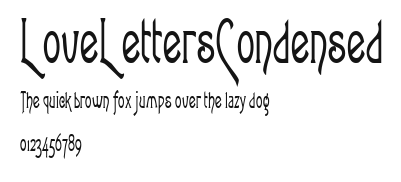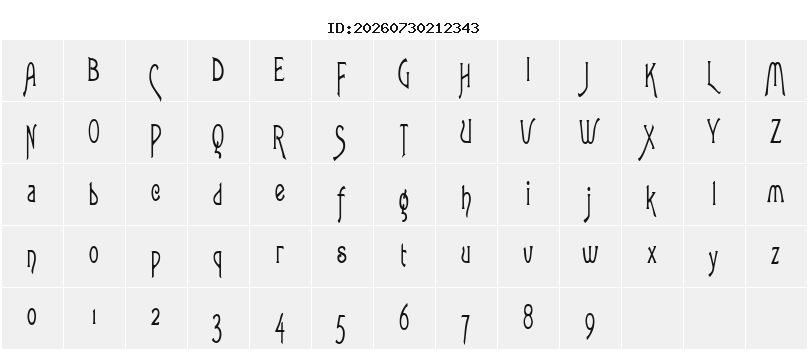
LoveLettersCondensed Preview
• Font Name: LoveLettersCondensed
• Font ID: SWFTE:LoveLettersCondensed Regular
• Full Font Name: LoveLettersCondensed
• Version: Rev. 003.000
• PostScript Name: LoveLettersCondensedRegularSWFTE
• Character Count: 94
About LoveLettersCondensed.ttf
LoveLettersCondensed.ttf is a modern, elegant sans-serif font designed for ultimate readability and visual harmony. Perfect for branding, headlines, web design, and print materials.